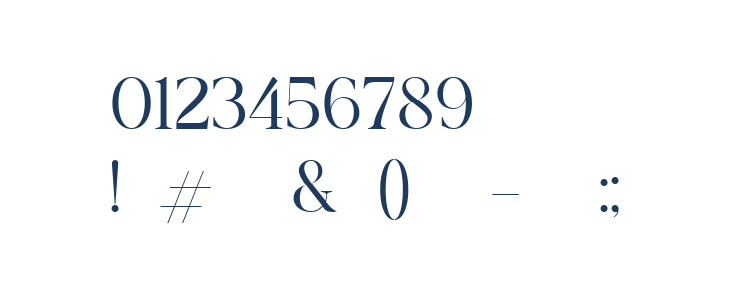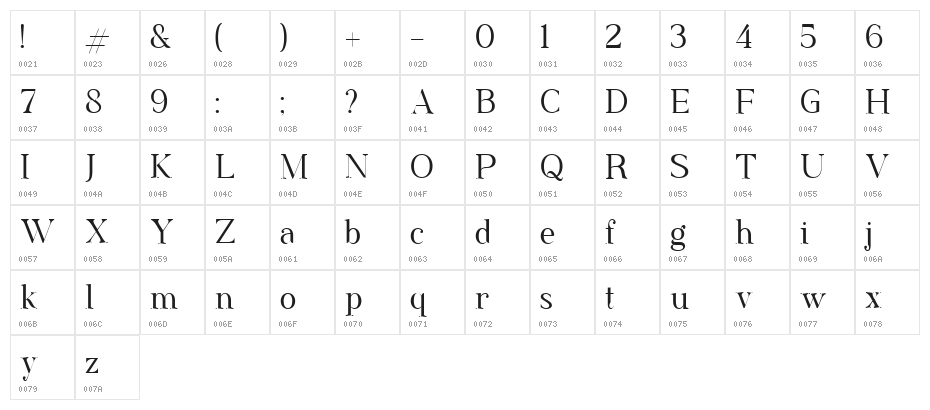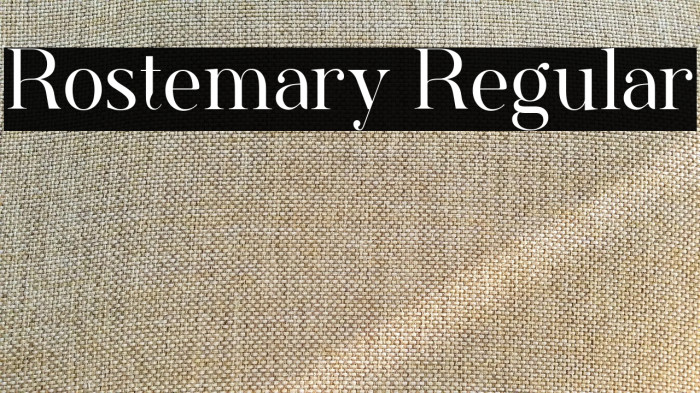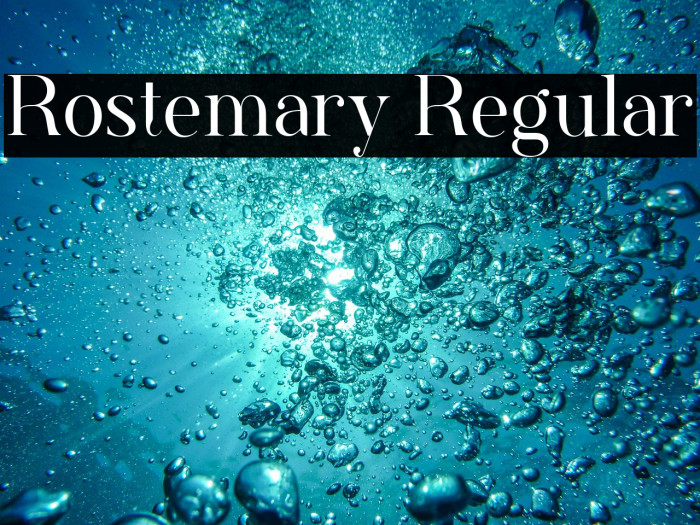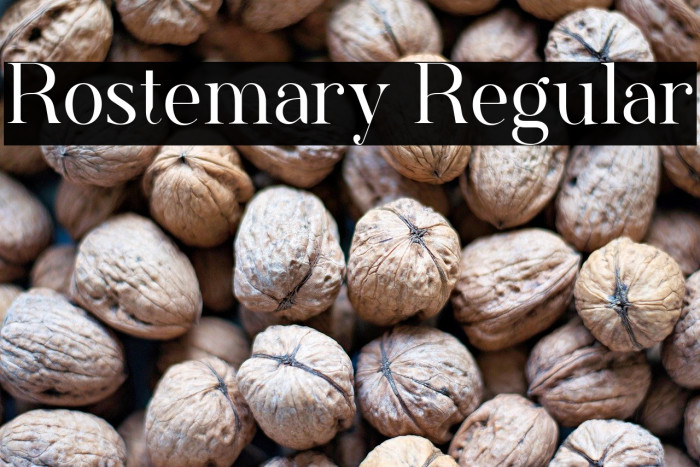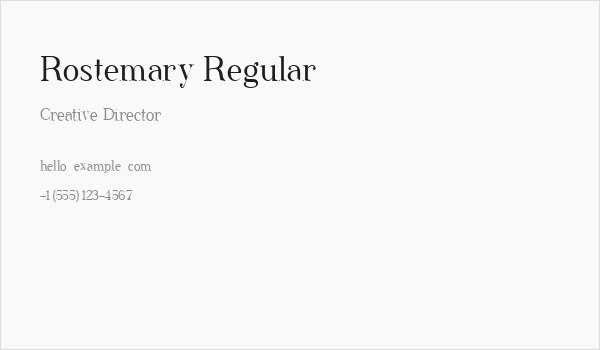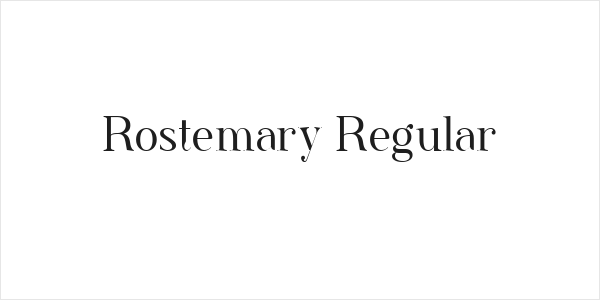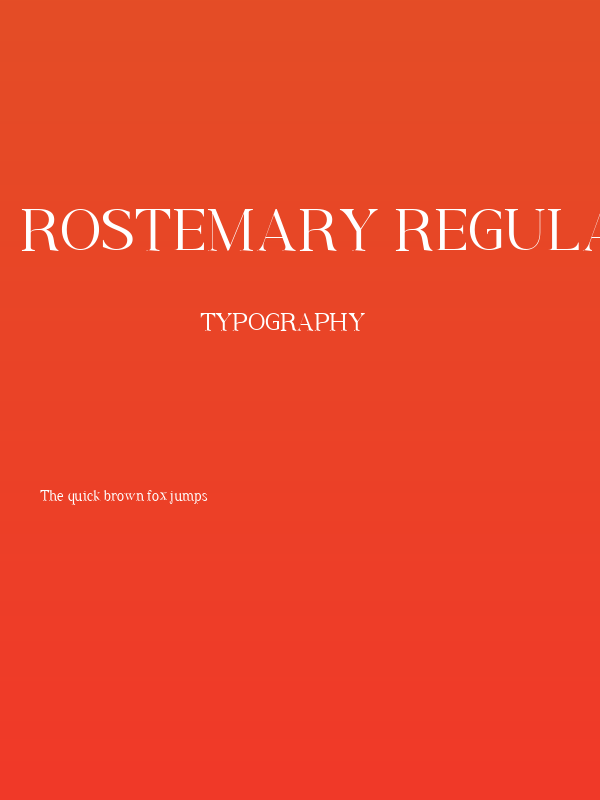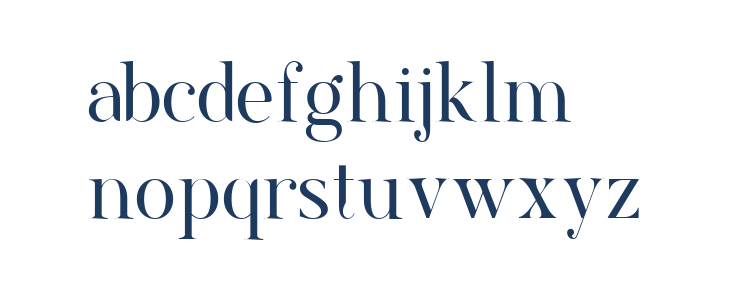
Rostemary Regular Font
Rostemary Regular Description
This font features a classic serif style with elegant and refined strokes. The uppercase letters are tall and stately, while the lowercase letters maintain a balanced and harmonious appearance. The numerals are clear and distinct, making them easily readable. Special characters are designed with the same attention to detail, ensuring consistency throughout. The font's overall design is sophisticated, making it suitable for formal and professional applications. Its high contrast between thick and thin strokes adds a touch of drama and elegance.
| Proposed Projects | Ideal for editorial design, book covers, formal invitations, and branding projects that require a touch of sophistication. |